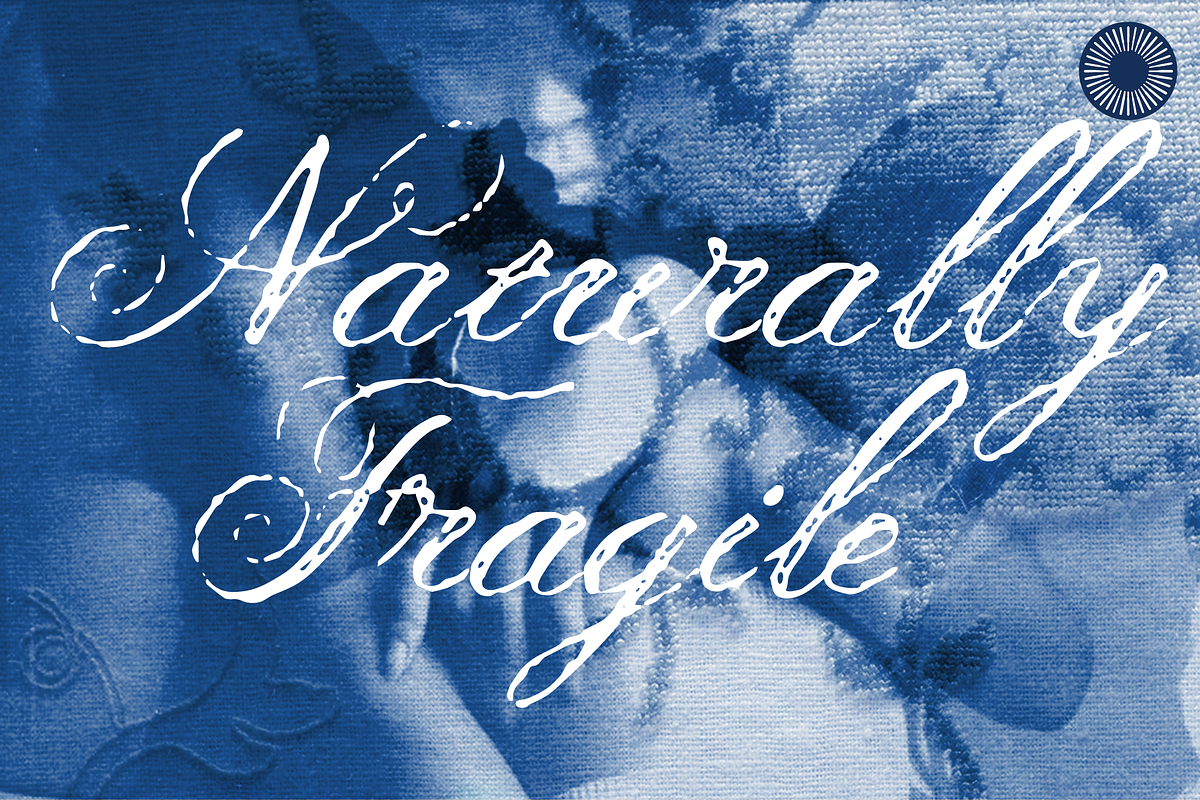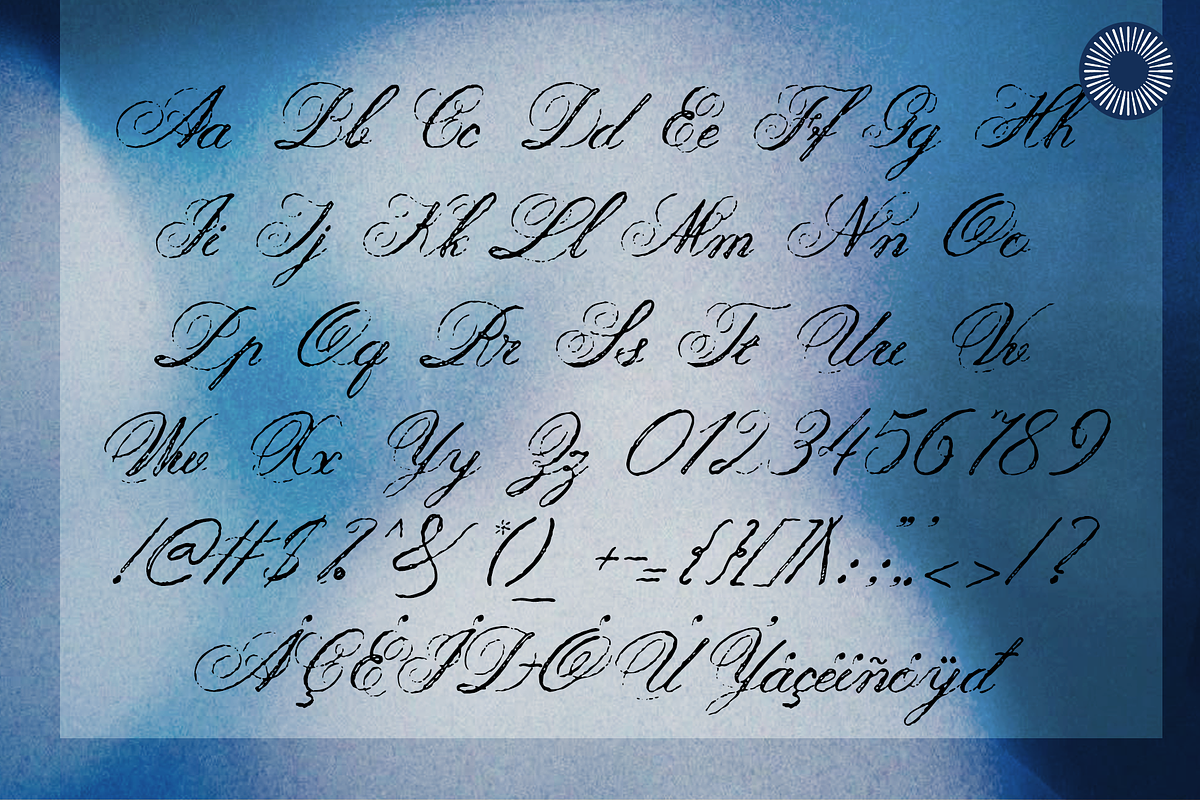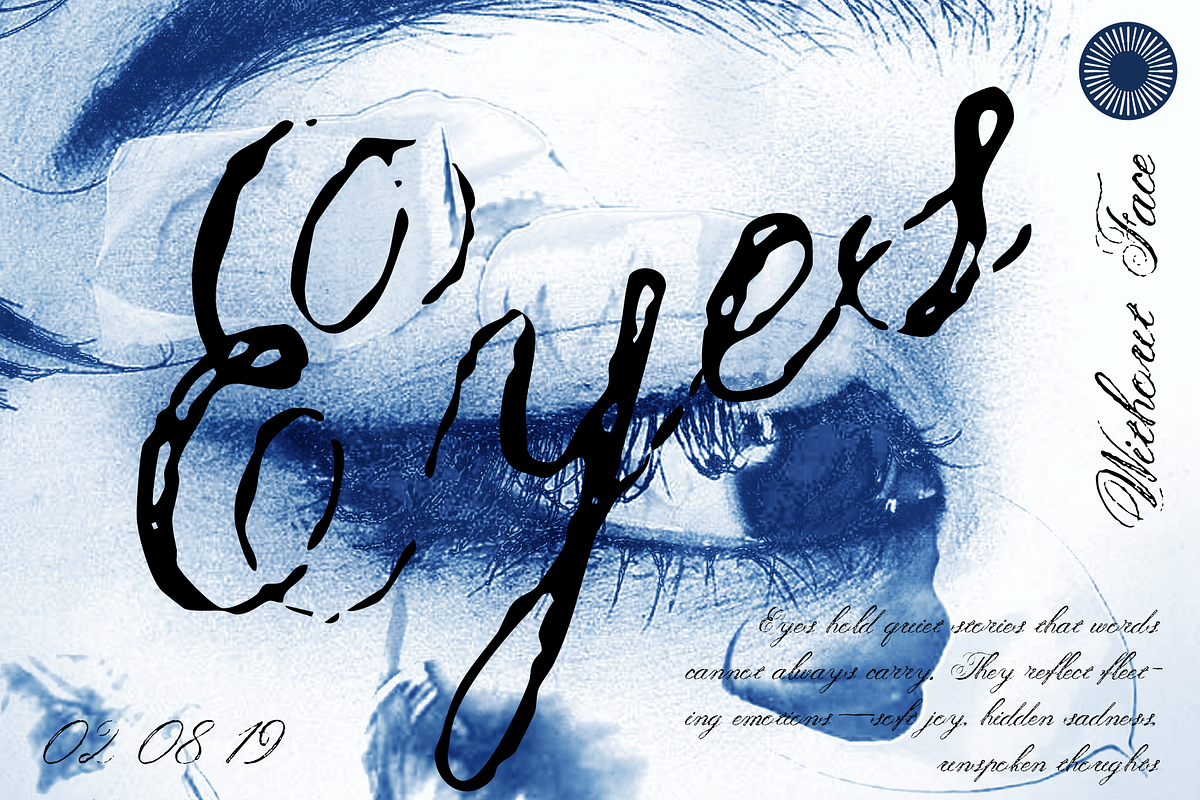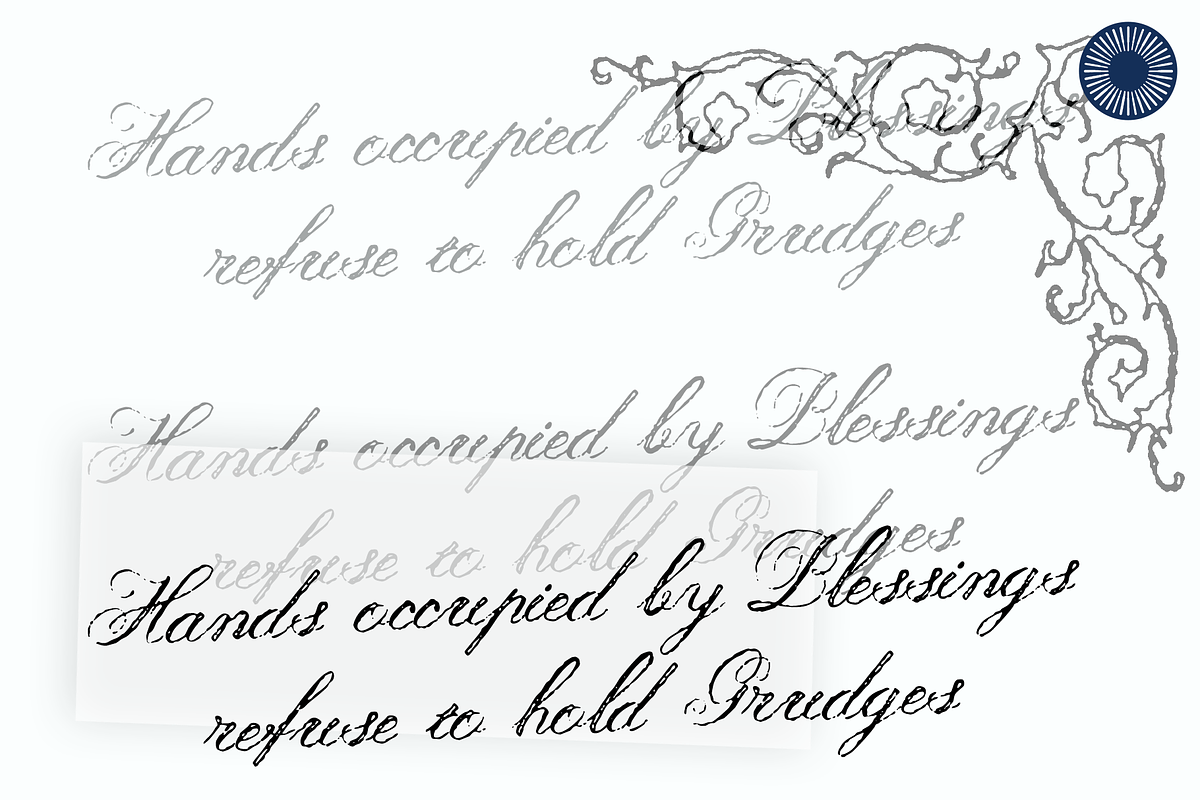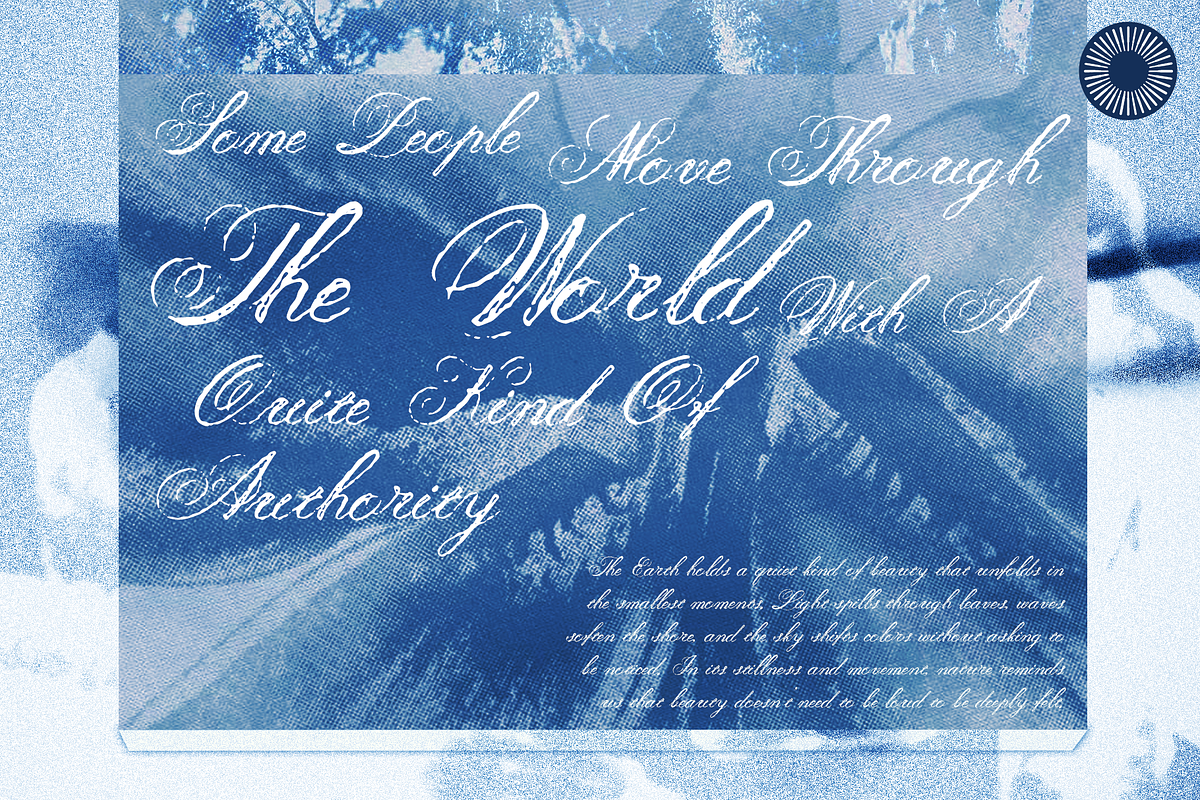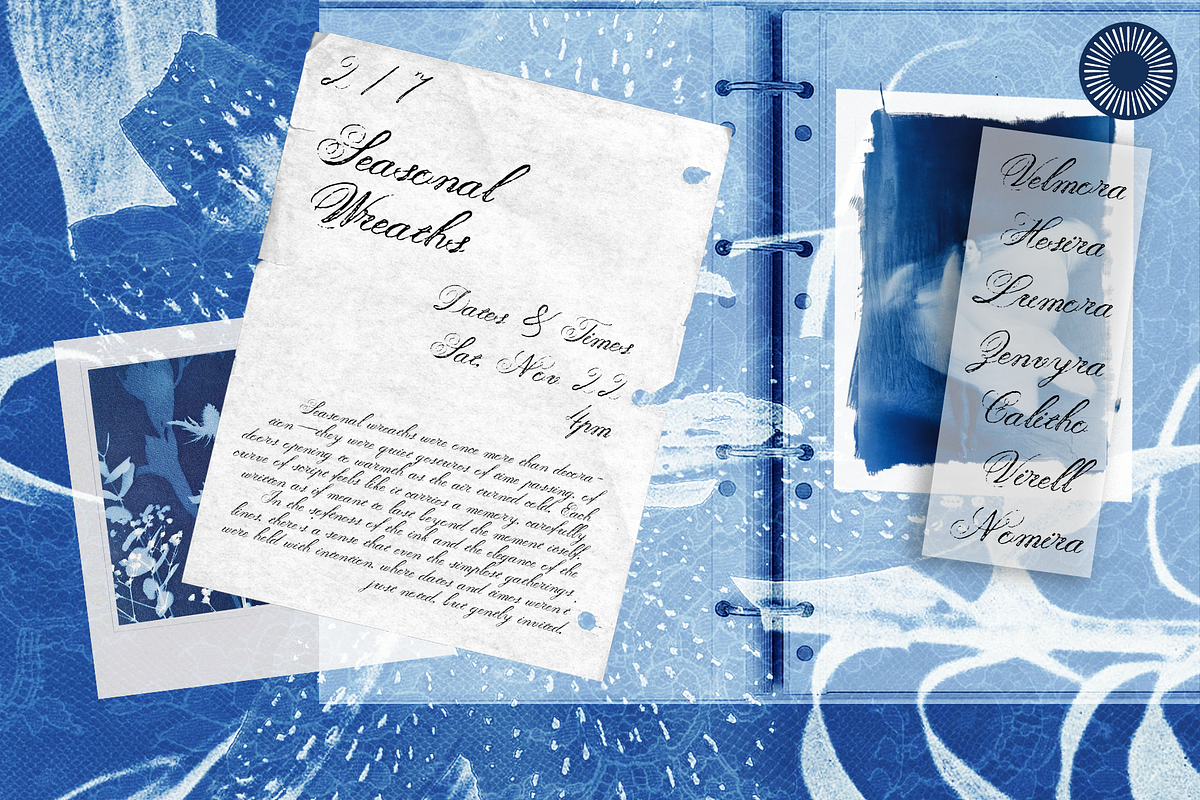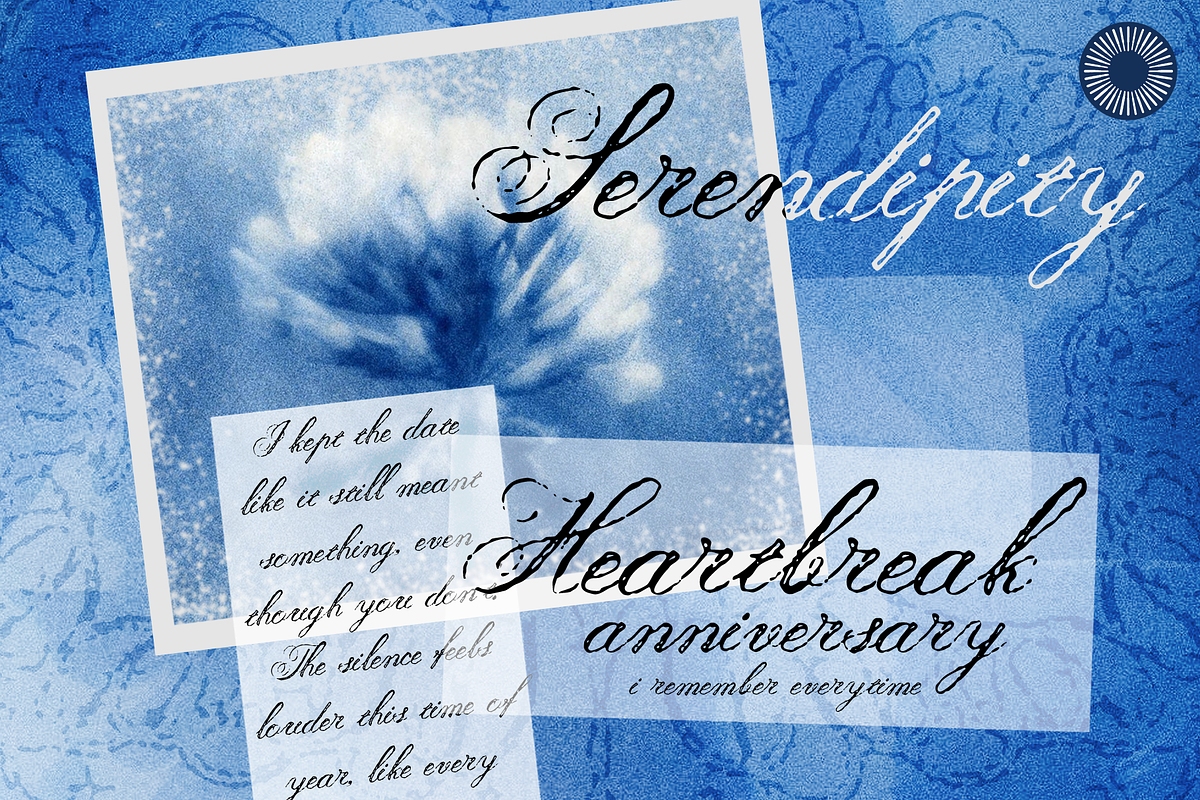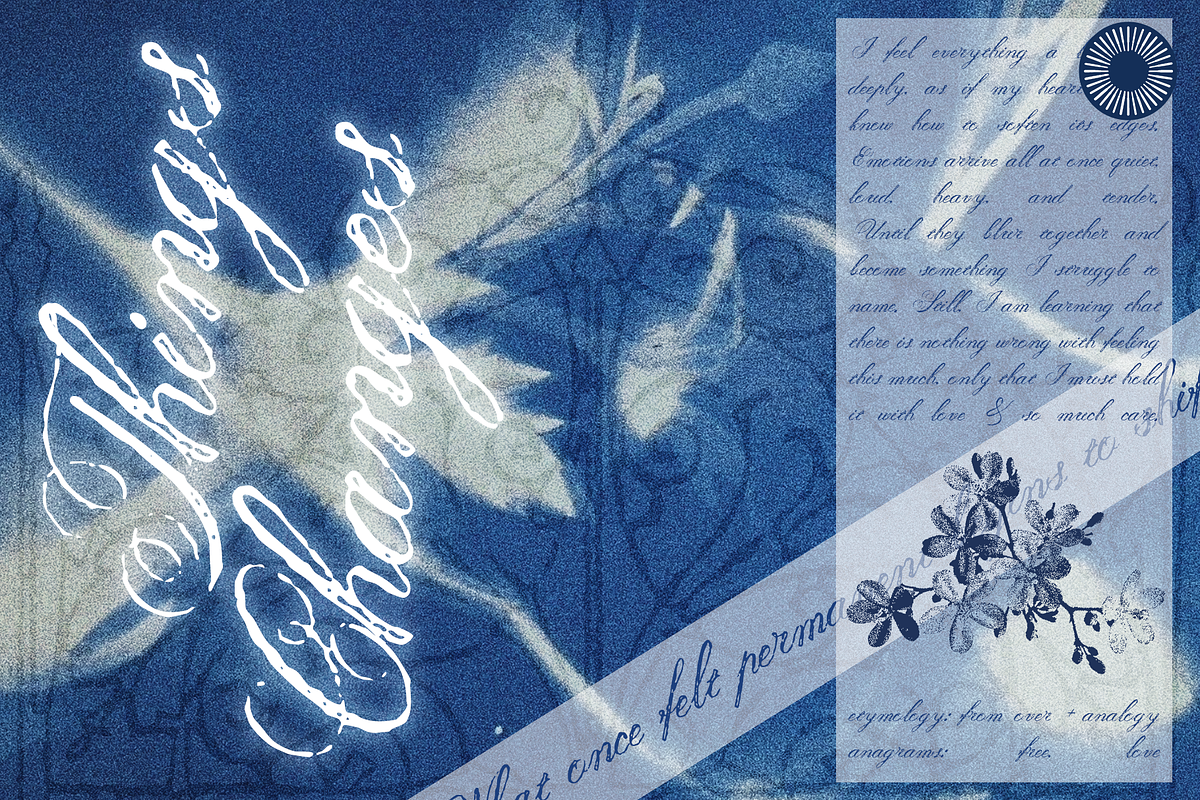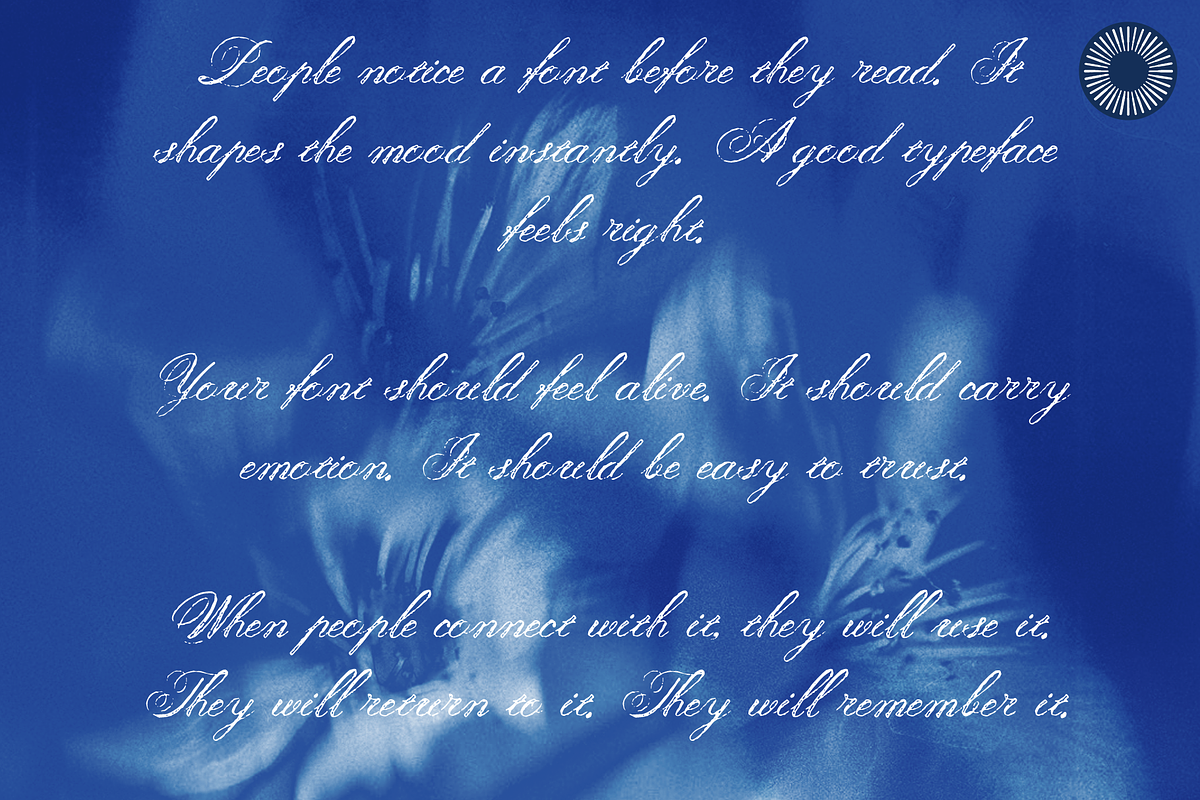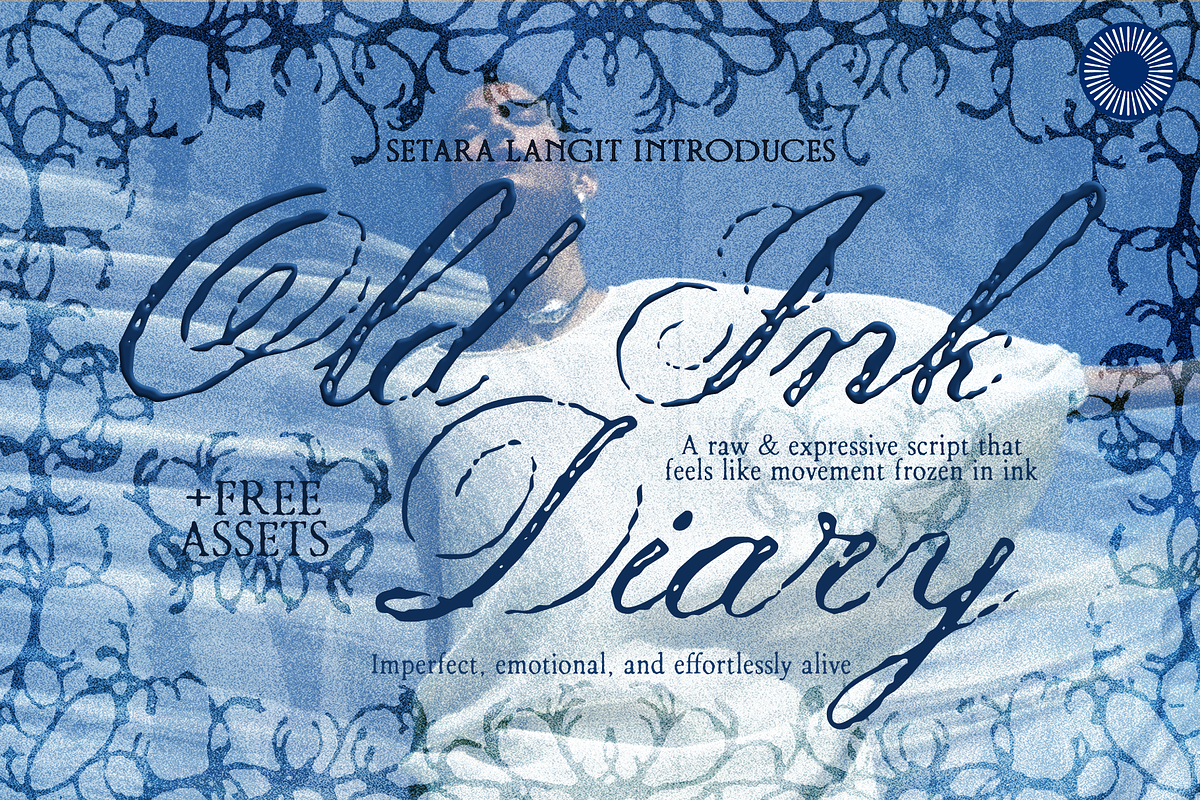
Old Ink Diary - Raw Ink Script
Old Ink Diary is a raw and expressive script font that captures the feeling of movement frozen in ink. With its imperfect strokes and organic flow, this font brings a deeply human, emotional quality to your typography.
Designed with textured edges and natural inconsistencies, it embraces imperfection creating a bold, artistic look that feels spontaneous and alive. Each letter carries the rhythm of real handwriting, making your designs feel more personal and authentic.
Uppercase & lowercase letters
Stylistic alternates
Ligatures for natural flow
Raw, expressive brush-style strokes
Textured and slightly grungy appearance
Natural handwritten movement
Imperfect, organic letterforms
Perfect for Branding, album covers, posters, social media graphics, quotes, packaging, creative projects, artistic layouts, and bold visual identities.